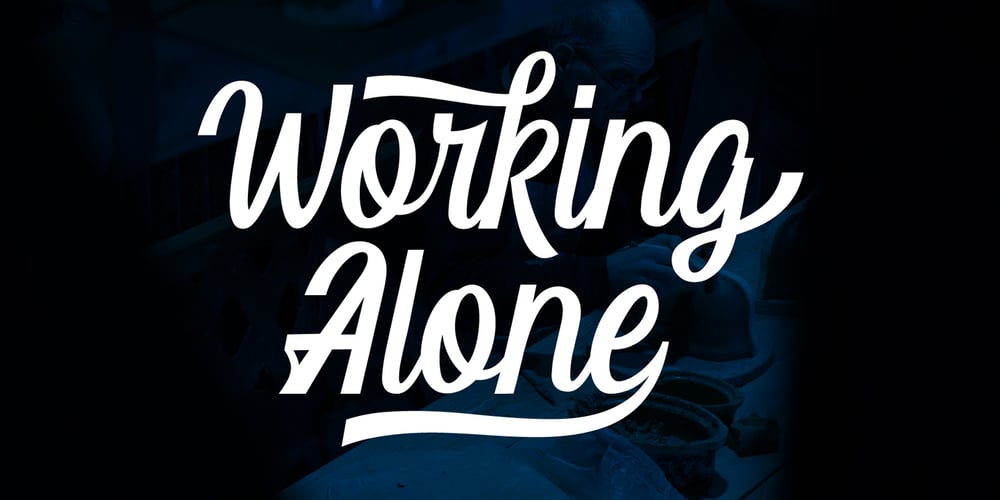
Rech Munchase
Rech Munchase font
Rech Munchase Font Family was designed by Bagas Ardiatma and published by Trustha. Rech Munchase contains 1 styles and family package options. Rech Munchase is a handmade script font. Rech Munchase is perfect for logotypes, posters, apparel designs, labels, website headers and much more!